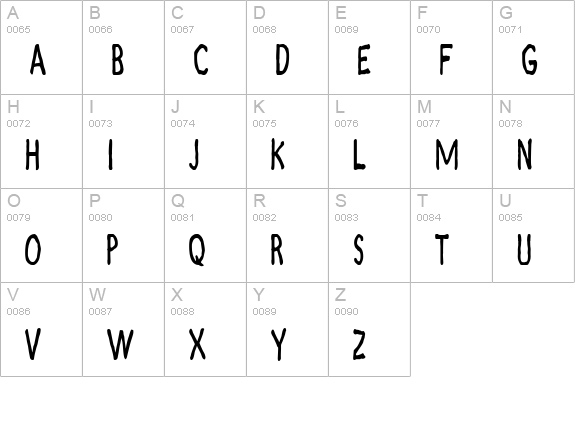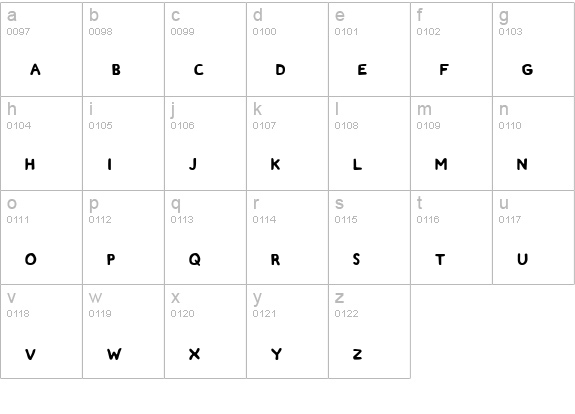
Zamboni Joe Font Details
Introducing Zamboni Joe font, a modern and stylish typeface that exudes sophistication and charm. With its sleek lines and elegant curves, Zamboni Joe is perfect for adding a touch of class to any design project. Whether you're creating a logo, branding materials, or a website, this versatile font will elevate your work to the next level. Best of all, Zamboni Joe font is completely free to download at FontsMarket.com. Don't miss out on the opportunity to add this exquisite font to your collection without breaking the bank. Take advantage of its timeless appeal and make your projects stand out from the crowd with the help of Zamboni Joe font. Download it today and let your creativity soar!